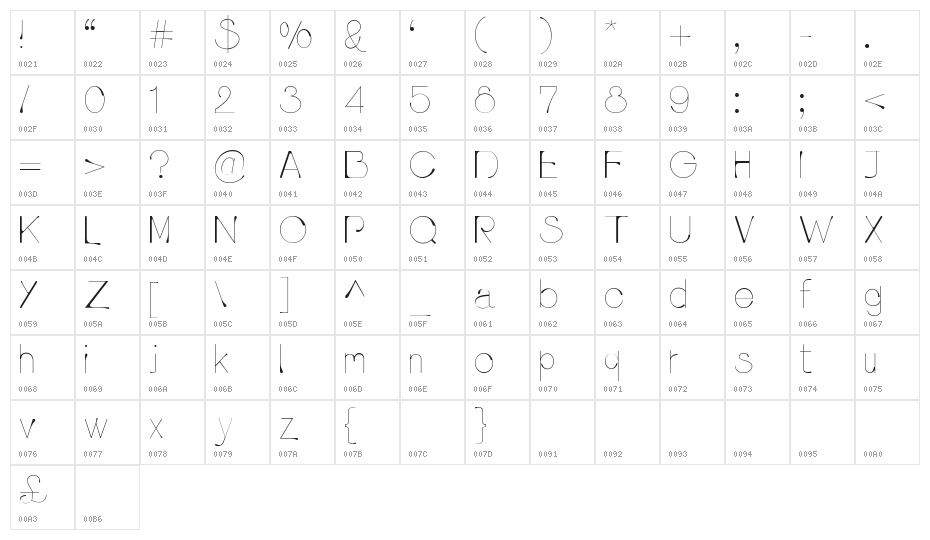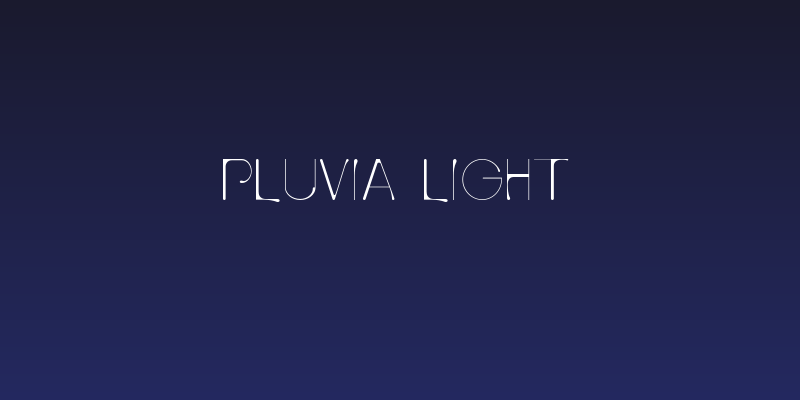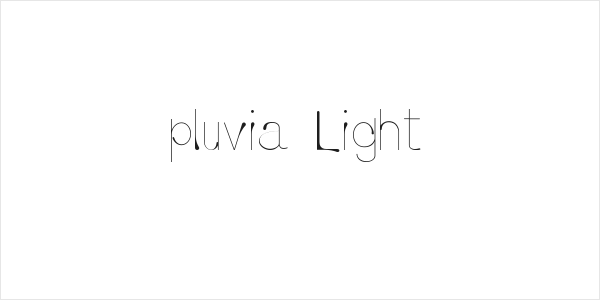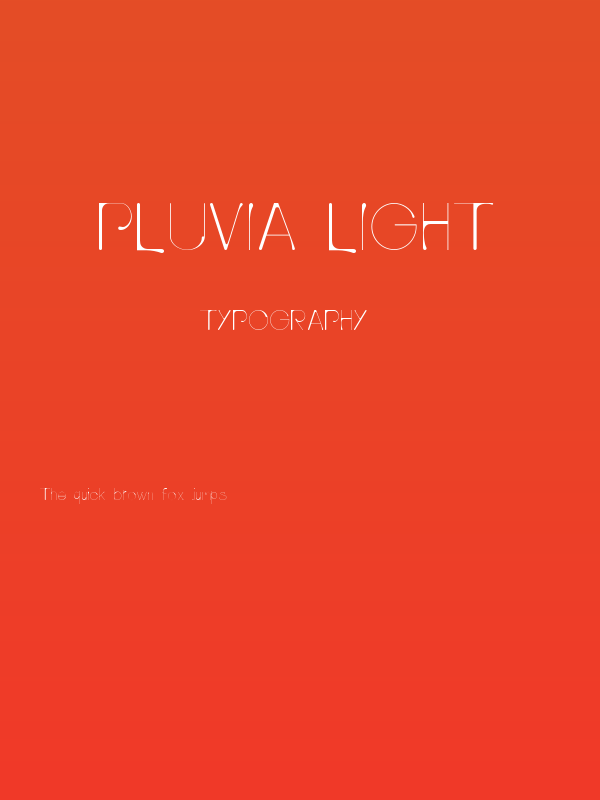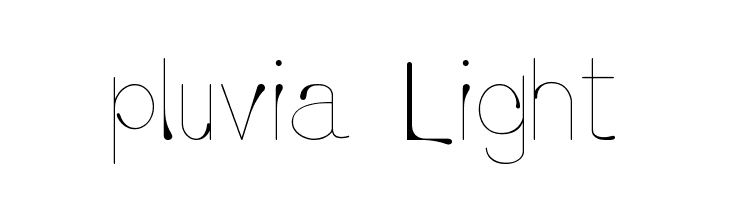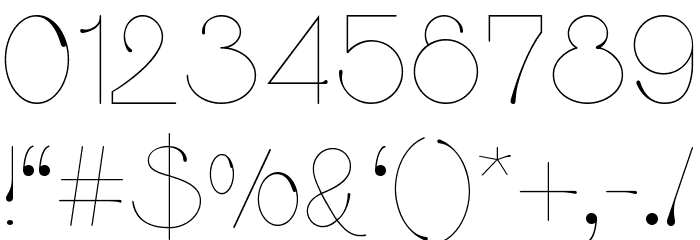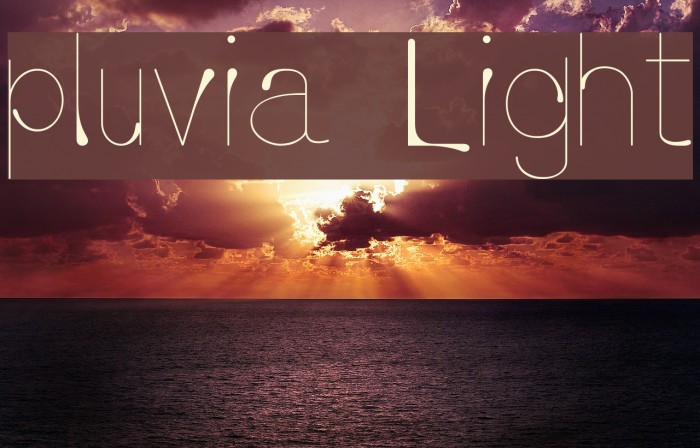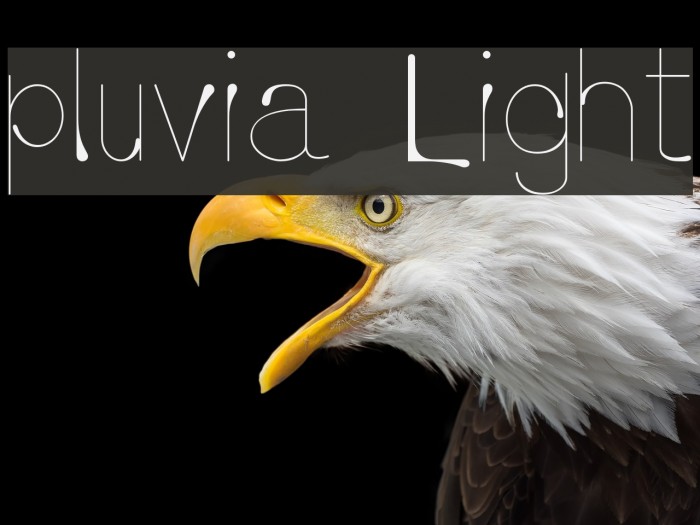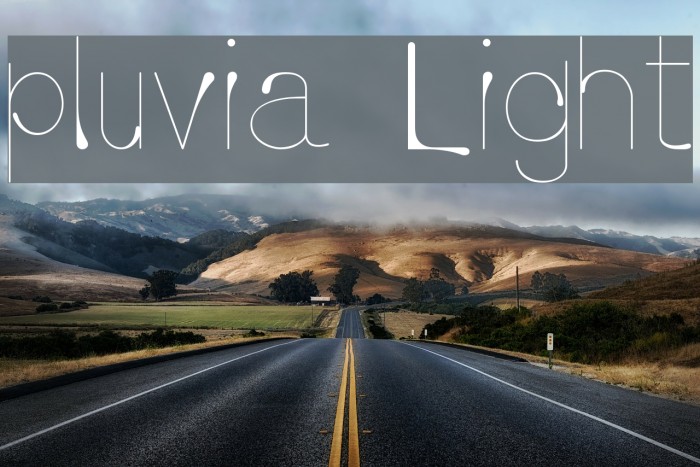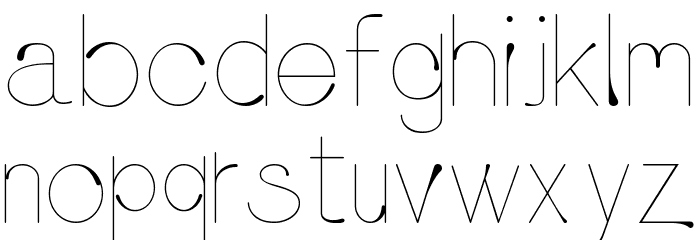
pluvia Light Font
pluvia Light Description
This font features a modern and elegant design with a light and airy feel. The characters are thin with a high contrast between thick and thin strokes, giving it a sophisticated and stylish appearance. The uppercase letters are distinct with unique curves and angles, while the lowercase letters maintain a consistent flow. The numerals are sleek and match the overall aesthetic, and the special characters are designed to complement the letterforms seamlessly. This font is ideal for projects that require a touch of elegance and modernity.
| Proposed Projects | Ideal for fashion magazines, luxury branding, wedding invitations, and high-end product packaging. |